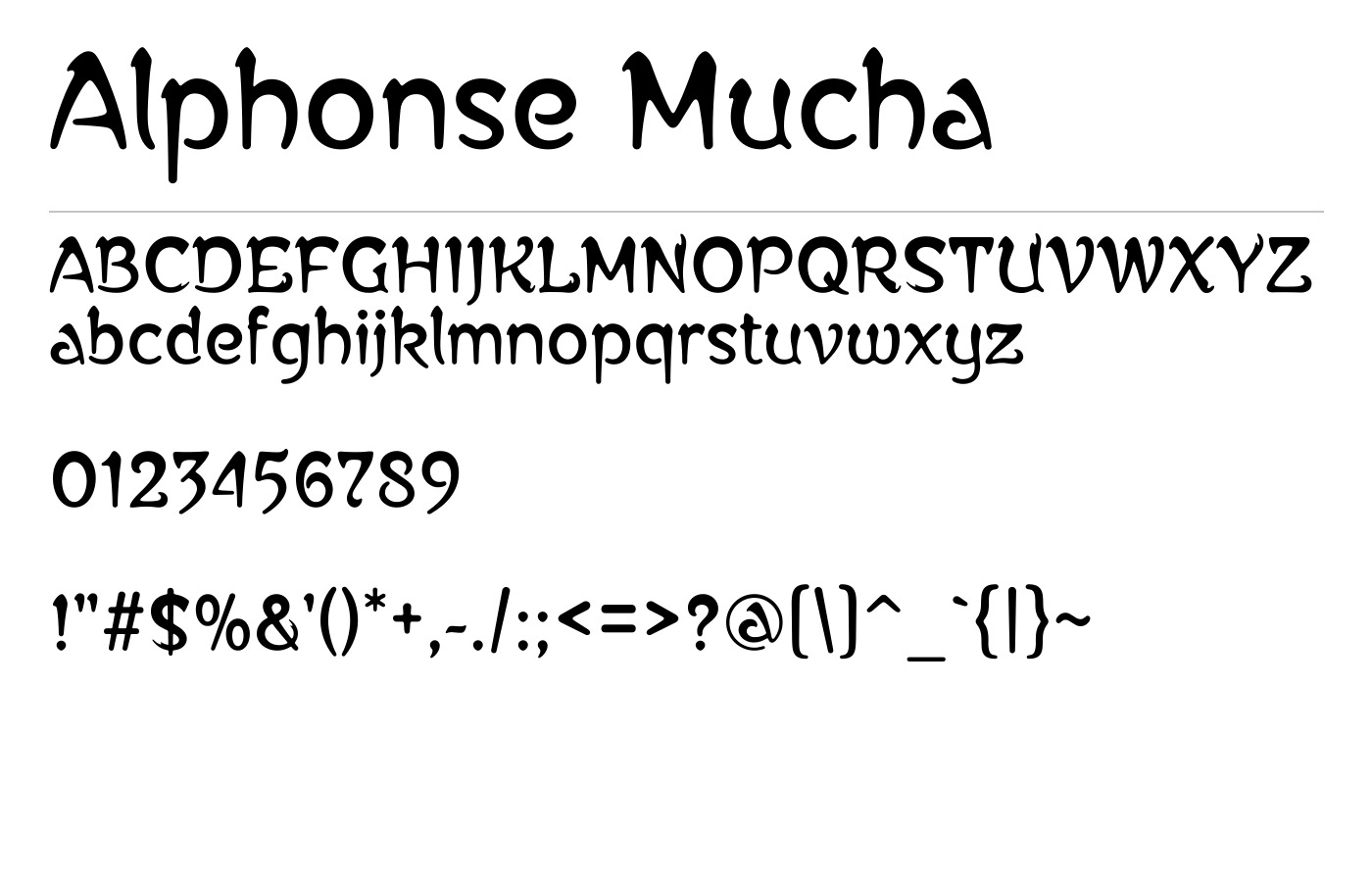
Alphonse Mucha is a playful and artistic serif font that features slightly irregular, hand-drawn letterforms with a moderate contrast in stroke weight. Its whimsical, vintage-inspired style evokes an organic and creative feel, making it perfect for artistic branding, decorative headlines, and unique packaging that want to convey charm and individuality. This font works best in display settings where its character and flair can shine, adding a touch of personality and warmth.
Alphonse Mucha Font
About Alphonse Mucha Font
| Font family | Alphonse Mucha Font |
| Designer | Keith Bates |